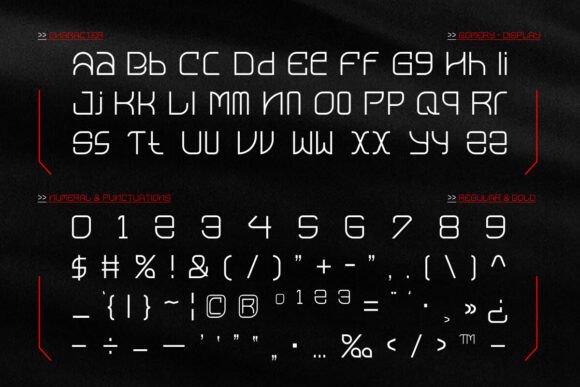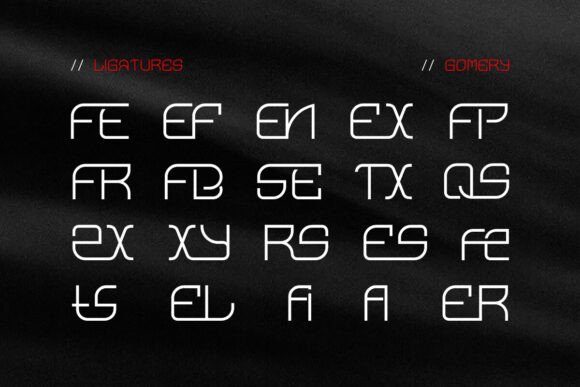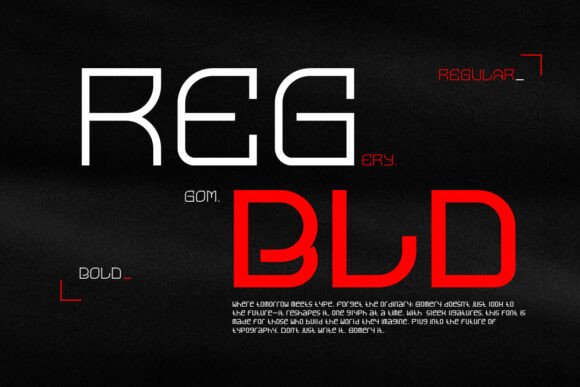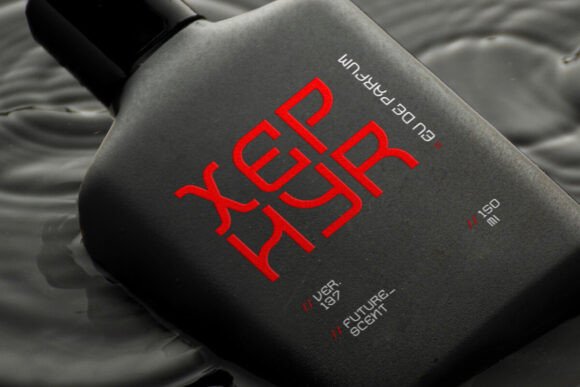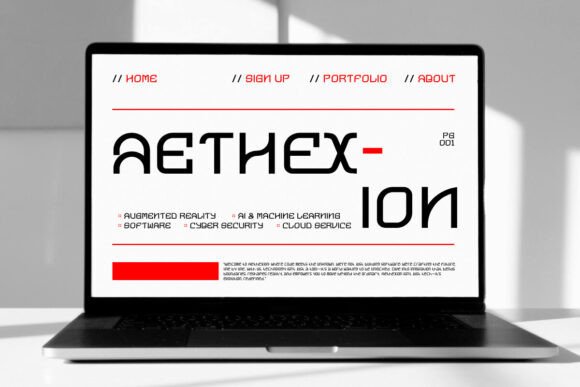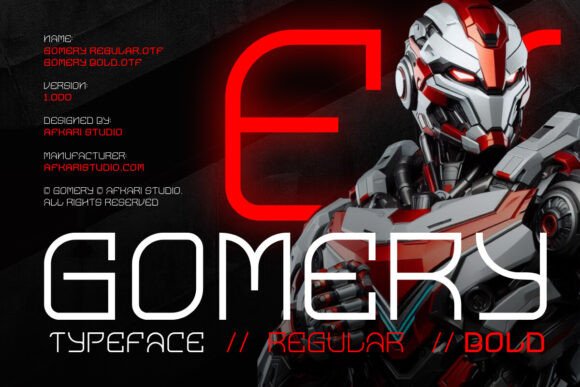
Introducing Gomery: The Futuristic Display Font That’s Changing the Game
I’ll never forget the moment I stumbled upon the perfect font for my project. I was working late, surrounded by design briefs and client expectations, when I realized I needed something that would make my design pop. The problem was, I couldn’t find a font that captured the sleek, modern essence I was looking for – until I discovered Gomery.
This cutting-edge display font has been a game-changer for my design workflow, and I’m excited to share its awesomeness with you. Gomery is specifically designed to bring a futuristic edge to your projects, making it perfect for tech-oriented branding, digital interfaces, and forward-thinking designs.
What Makes Gomery Special?
Gomery combines clean, geometric lines with striking curves, creating a bold presence that stands out in any layout. Each character is meticulously crafted to balance readability with a stylish, sci-fi appeal, making it ideal for logos, posters, headlines, and digital content.
Here are some of the things I love about Gomery:
- ✨ Unique and memorable design: Gomery’s futuristic style makes it perfect for brands and projects that want to stand out.
- ✅ Highly versatile: This font can be used for a wide range of projects, from tech branding to fashion designs.
- 💻 Perfect for digital interfaces: Gomery’s clean lines and geometric shapes make it ideal for UI/UX designs, apps, and websites.
- 📚 Sci-fi and futuristic appeal: If you’re working on a project that requires a sci-fi or futuristic vibe, Gomery is the perfect choice.
Honest Review: The Not-So-Perfect Gomery
While Gomery is an amazing font, it’s not without its quirks. Here are a few things to keep in mind:
- 🤔 Limited use in traditional or serif-heavy designs: Gomery’s futuristic style might not be the best fit for traditional or serif-heavy designs.
- ⚠️ May require adjustments for longer texts: While Gomery is perfect for headlines and short texts, it might require adjustments for longer texts to maintain readability.
The Story Behind Gomery
Gomery is the brainchild of a talented type designer who’s passionate about creating fonts that inspire creativity. The designer’s inspiration came from sci-fi movies, futuristic architecture, and cutting-edge technology.
The goal was to create a font that’s both futuristic and functional, with a unique personality that stands out in any design. After months of research and development, Gomery was born – a font that’s changing the game for designers and creatives.
| What is Gomery? | Gomery is a futuristic display font designed for tech-oriented branding, digital interfaces, and forward-thinking designs. |
| Is Gomery suitable for print designs? | Yes, Gomery can be used for print designs, but it’s best suited for headlines and short texts. |
| Is Gomery available in different weights and styles? | Yes, Gomery comes in different weights and styles, including regular, bold, and italic. |
Gomery is more than just a font – it’s a design statement that can elevate your projects into the future. With its unique blend of clean lines, geometric shapes, and striking curves, Gomery is the perfect choice for designers, crafters, and creative hobbyists who want to make a statement.